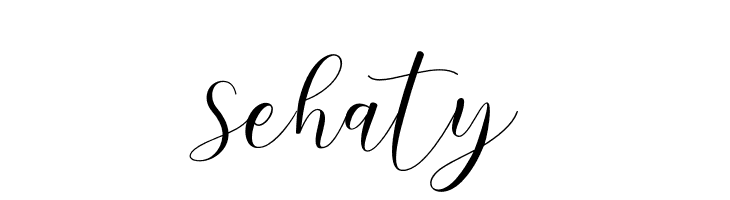
A flowing, cursive script font with elegant, connected strokes.
A graceful, cursive font with elegant loops and swirls.
A cursive, handwritten font with elegant loops and swashes.
An elegant script font with flowing, cursive letterforms and decorative flourishes.